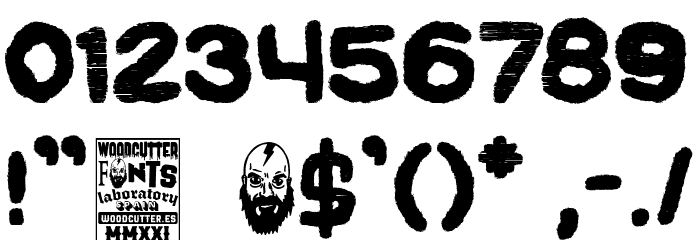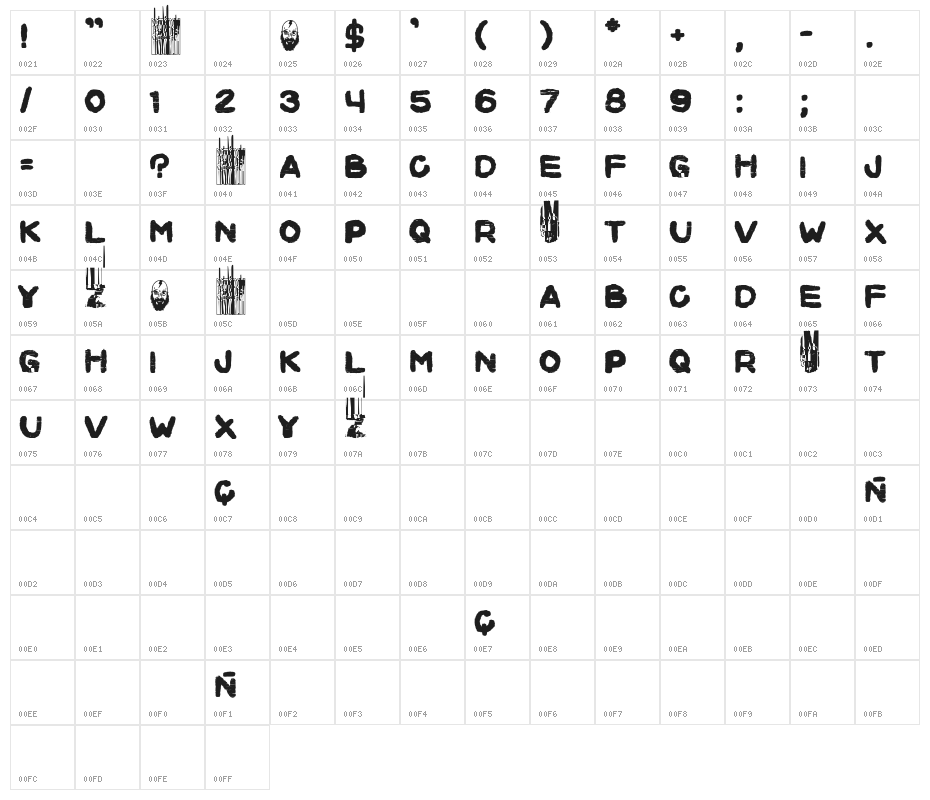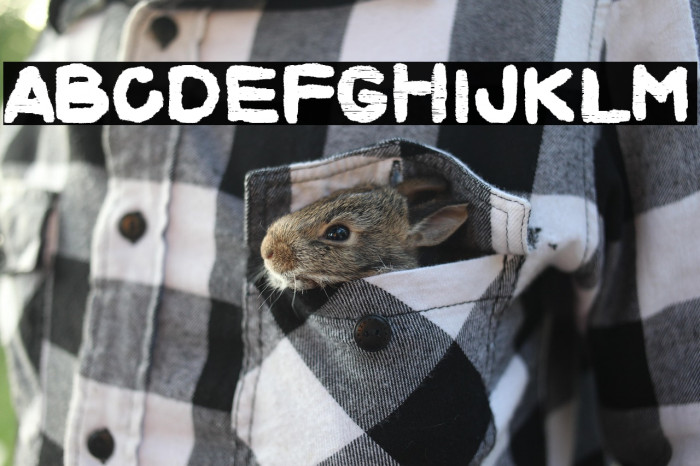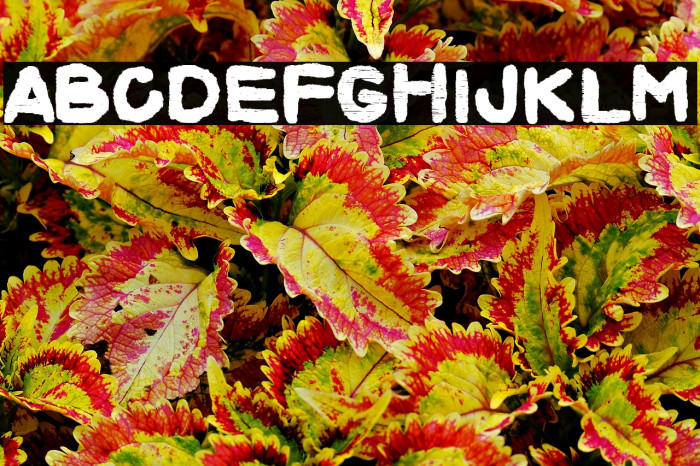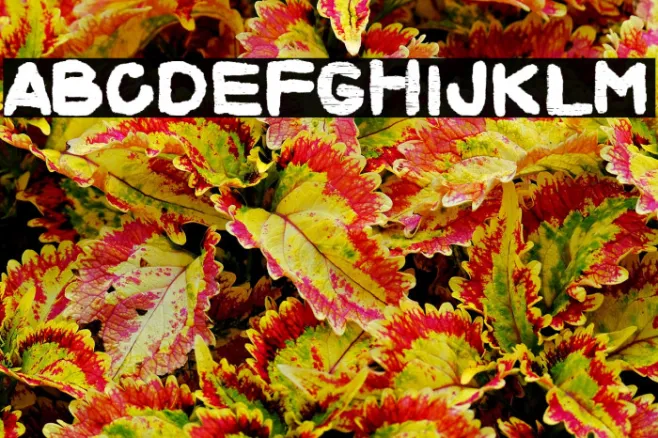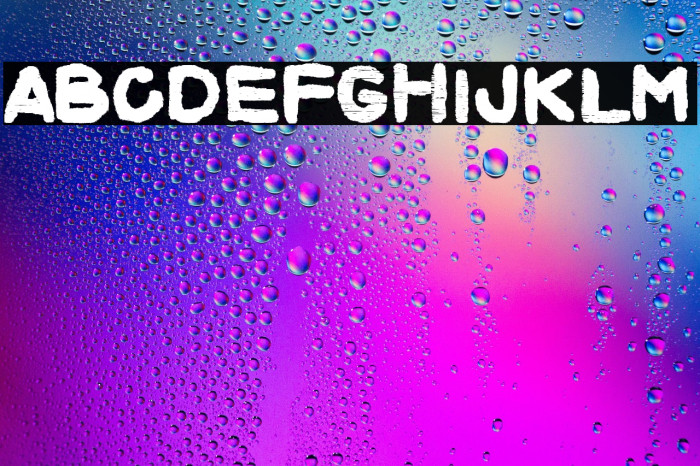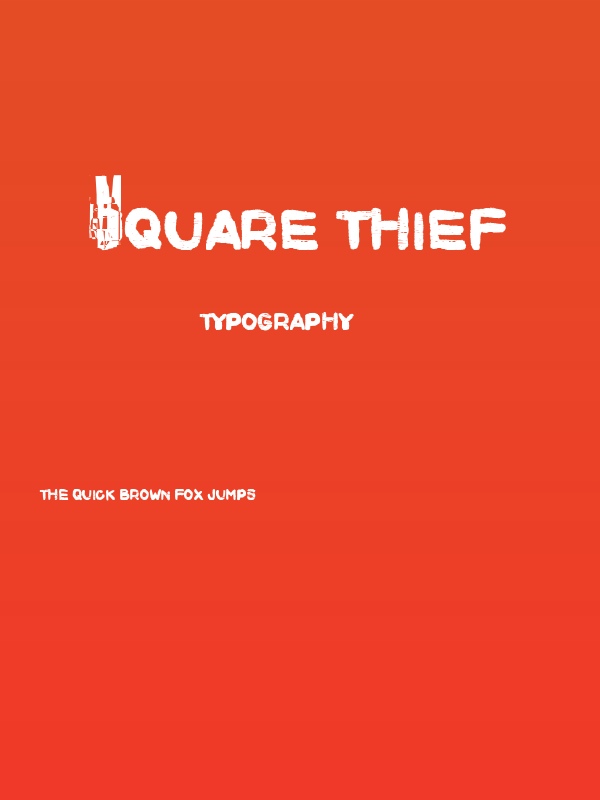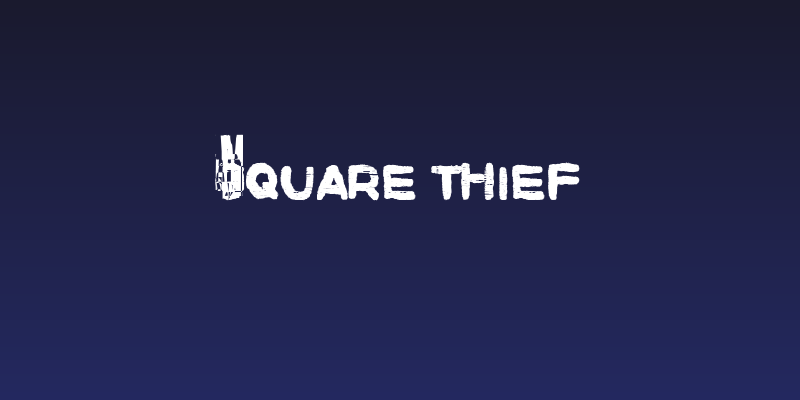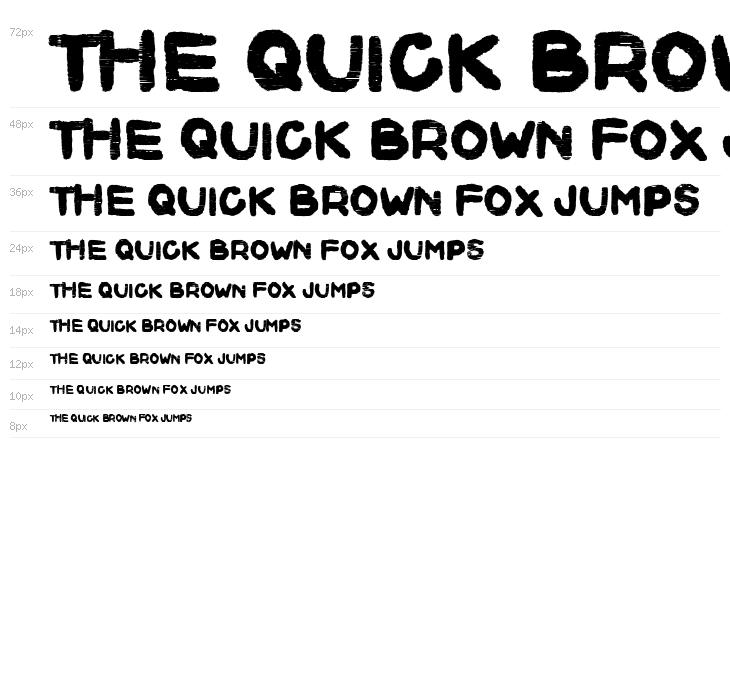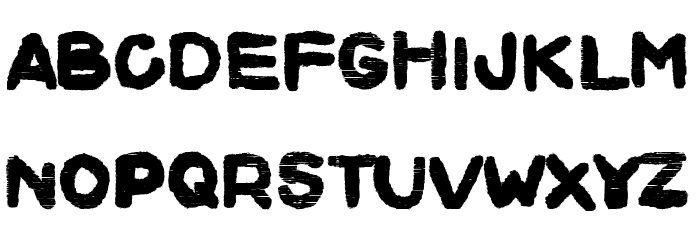
Square Thief Font
Square Thief Description
This font features a bold, brush-stroke style with a rough, textured appearance that gives it a hand-painted look. The characters are uppercase and lowercase letters, numbers, and a selection of special characters. Each letter has a unique, slightly irregular edge, contributing to its artistic and expressive feel. The font's design is reminiscent of street art or graffiti, making it ideal for projects that require a bold, eye-catching statement. The strokes are thick and consistent, providing a strong visual impact.
| Proposed Projects | Ideal for posters, album covers, street art designs, and any project requiring a bold, artistic touch. |